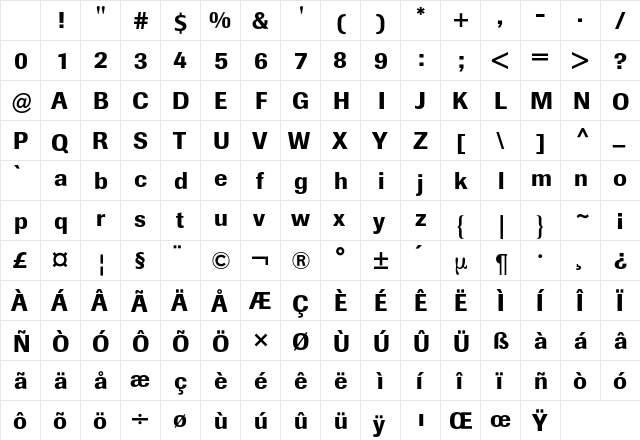
Complete Berthold Imago BQ Regular glyph index. Displaying only characters natively supported by Berthold Imago BQ Regular font.
Berthold Imago BQ is a composed and adaptable typeface that performs quietly and consistently across a wide range of design contexts.